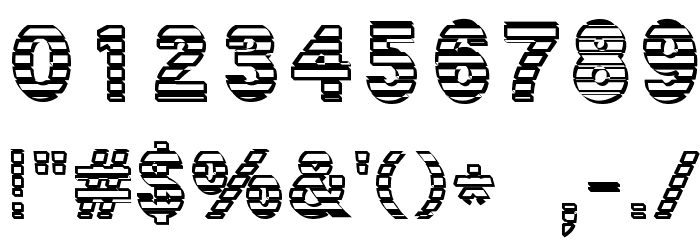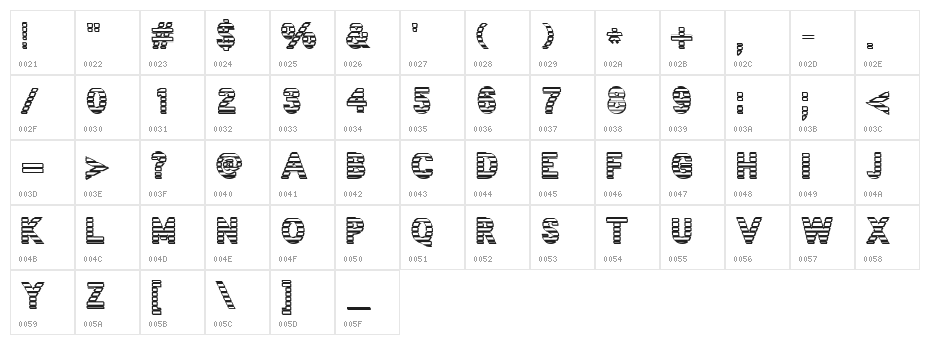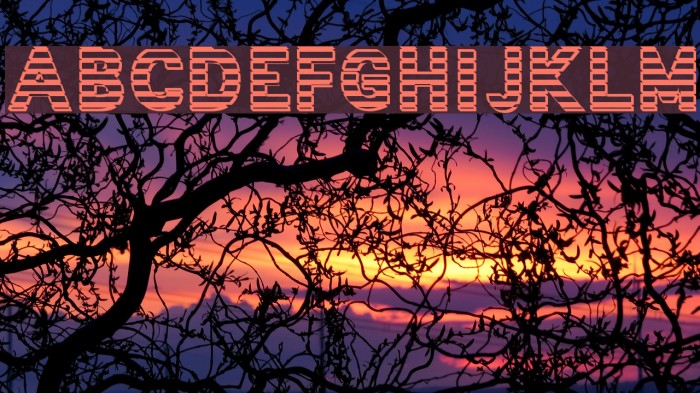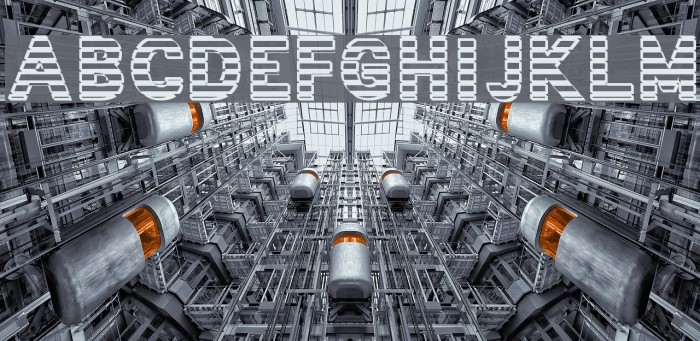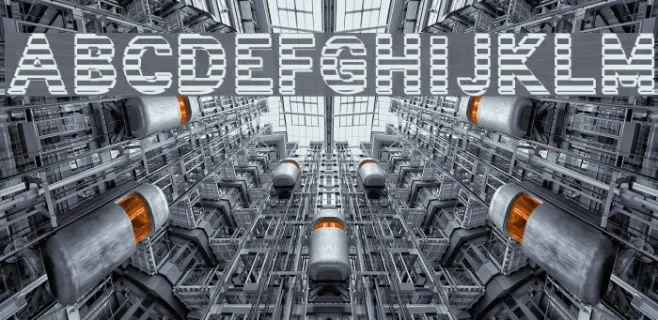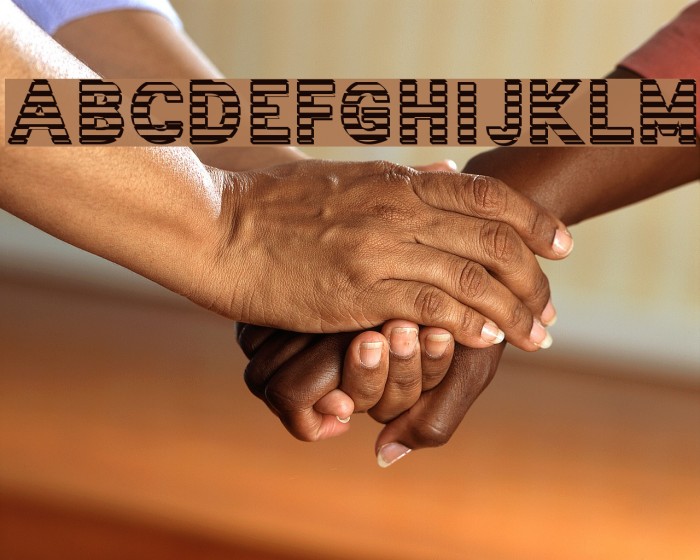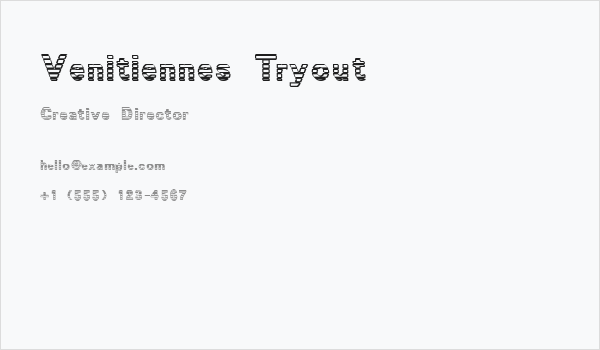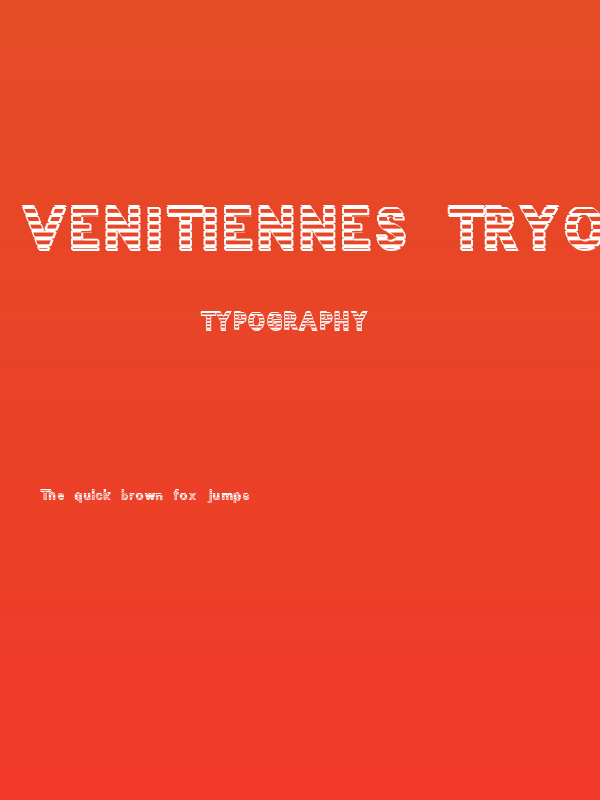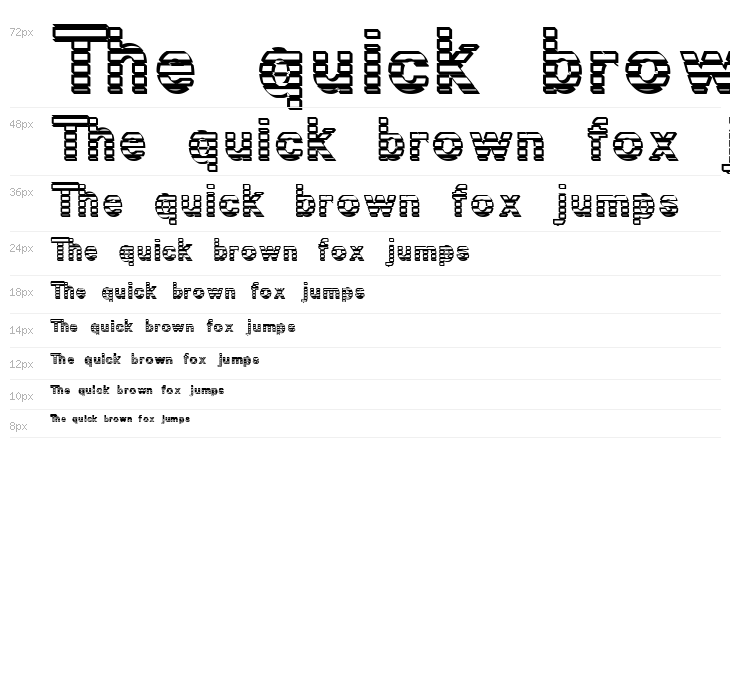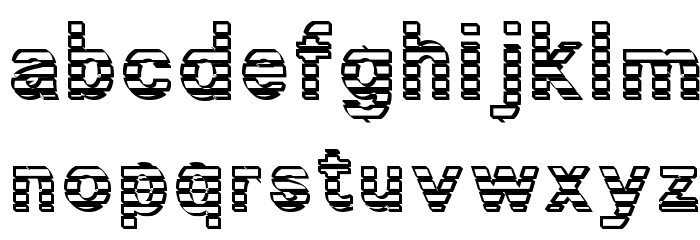
Venitiennes Tryout Font
Venitiennes Tryout Description
This font features a unique striped pattern that runs horizontally across each character, creating a visually striking effect. The letters are bold and have a geometric, block-like structure, which is enhanced by the alternating black and white lines. This design gives the font a playful yet sophisticated appearance, making it stand out in any design project. The uppercase and lowercase letters maintain a consistent style, while the numbers and special characters follow the same striped theme, ensuring uniformity across all text elements.
| Proposed Projects | Ideal for branding, posters, and any design project that requires a bold, eye-catching typeface. |